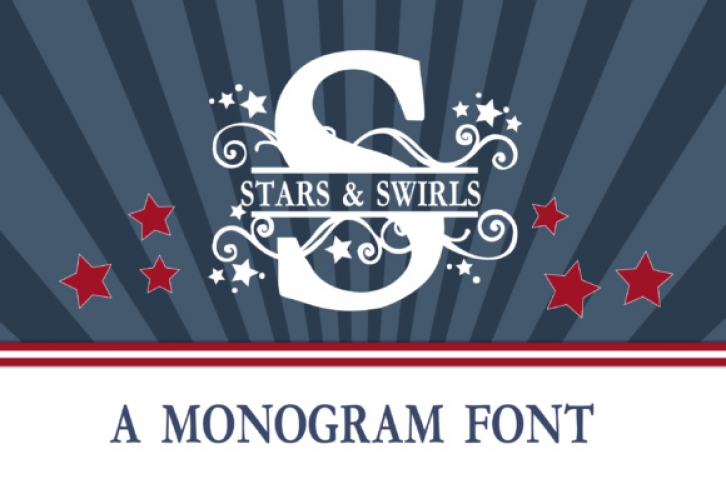
Stars & Swirls Monogram Banner is a gorgeous font created for use in crafting projects; this font is gorgeous and ornate, and can add a ton of style and presence to your crafting projects.